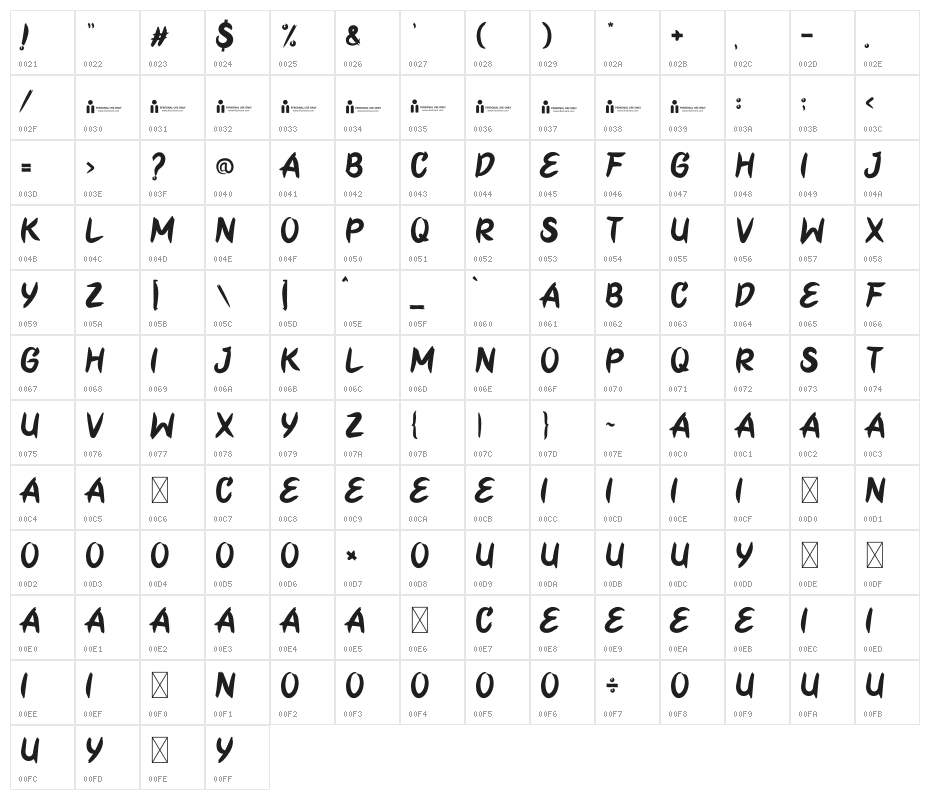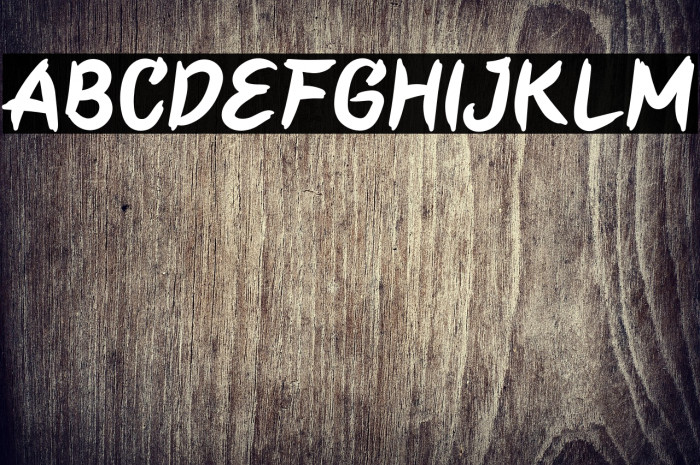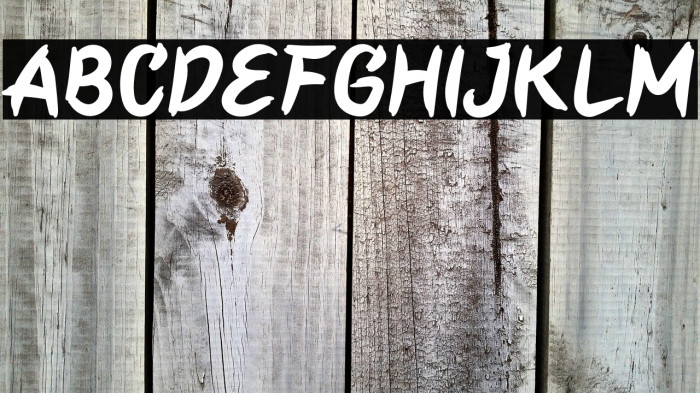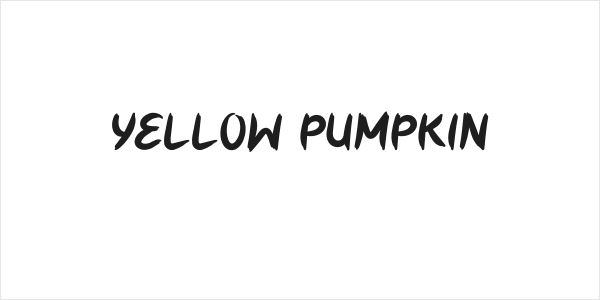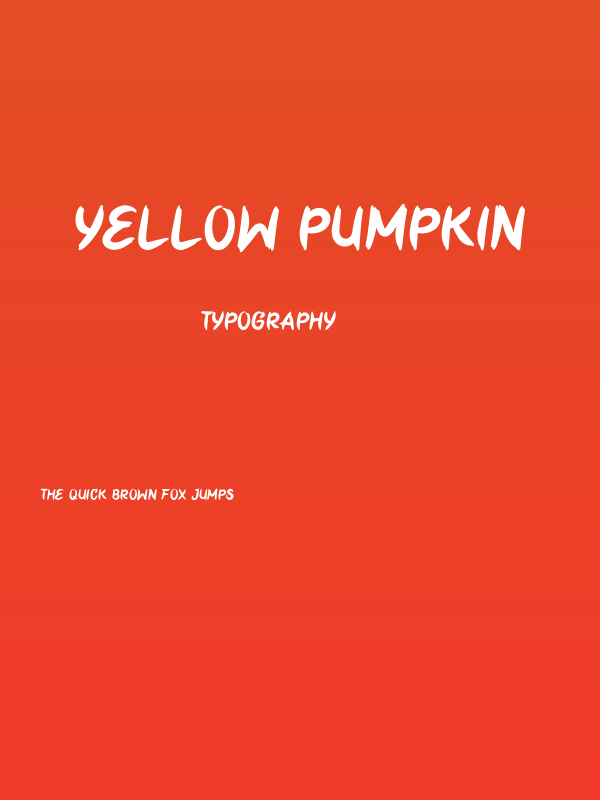
Yellow Pumpkin Font
Yellow Pumpkin Description
This font features a bold and energetic style with a handwritten appearance. The letters are slightly slanted, giving a dynamic and lively feel. The strokes are thick and consistent, creating a strong visual impact. The characters have a playful and informal look, making them suitable for creative and casual designs. The uppercase and lowercase letters maintain a cohesive style, with rounded edges and smooth curves. The special characters are designed to match the overall aesthetic, ensuring a harmonious look across all text elements.
| Proposed Projects | Ideal for posters, greeting cards, branding projects, and social media graphics. |